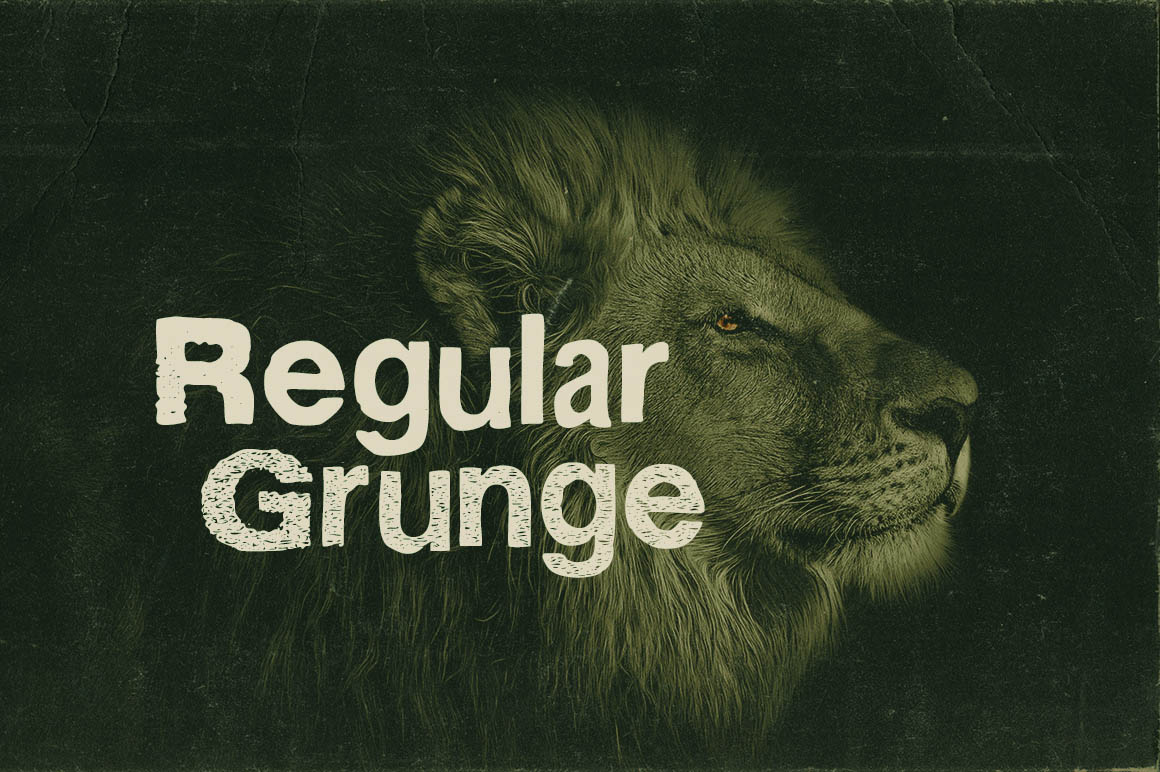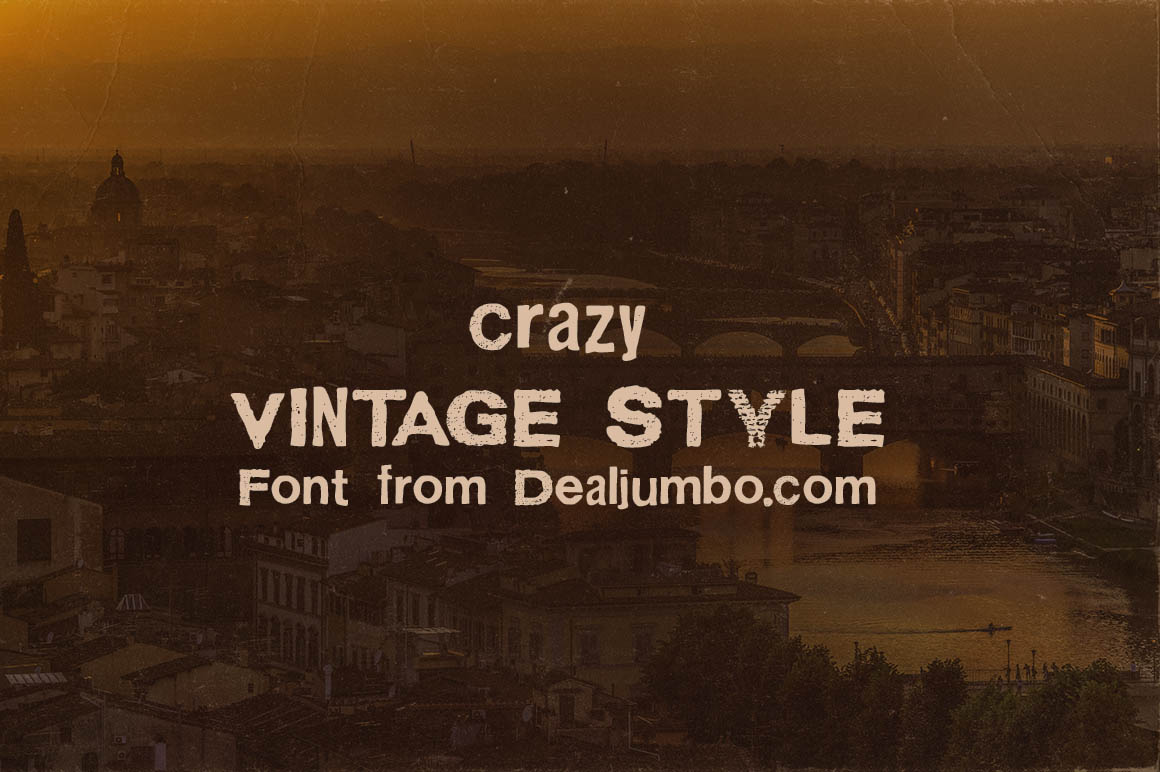
Incendiary – Free Font
Rough and crazy vintage style – free font from MIIM Design. Only basic characters in 2 font versions: Regular & Grunge. Download & enjoy 😉 Exclusive only for dealjumbo!